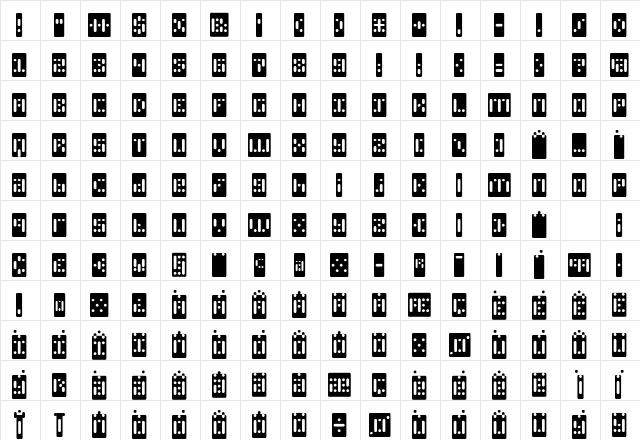
PhlexOcto Negative Regular
Design Context for PhlexOcto Negative Typeface
PhlexOcto Negative is a composed and adaptable typeface that performs quietly and consistently across a wide range of design contexts.